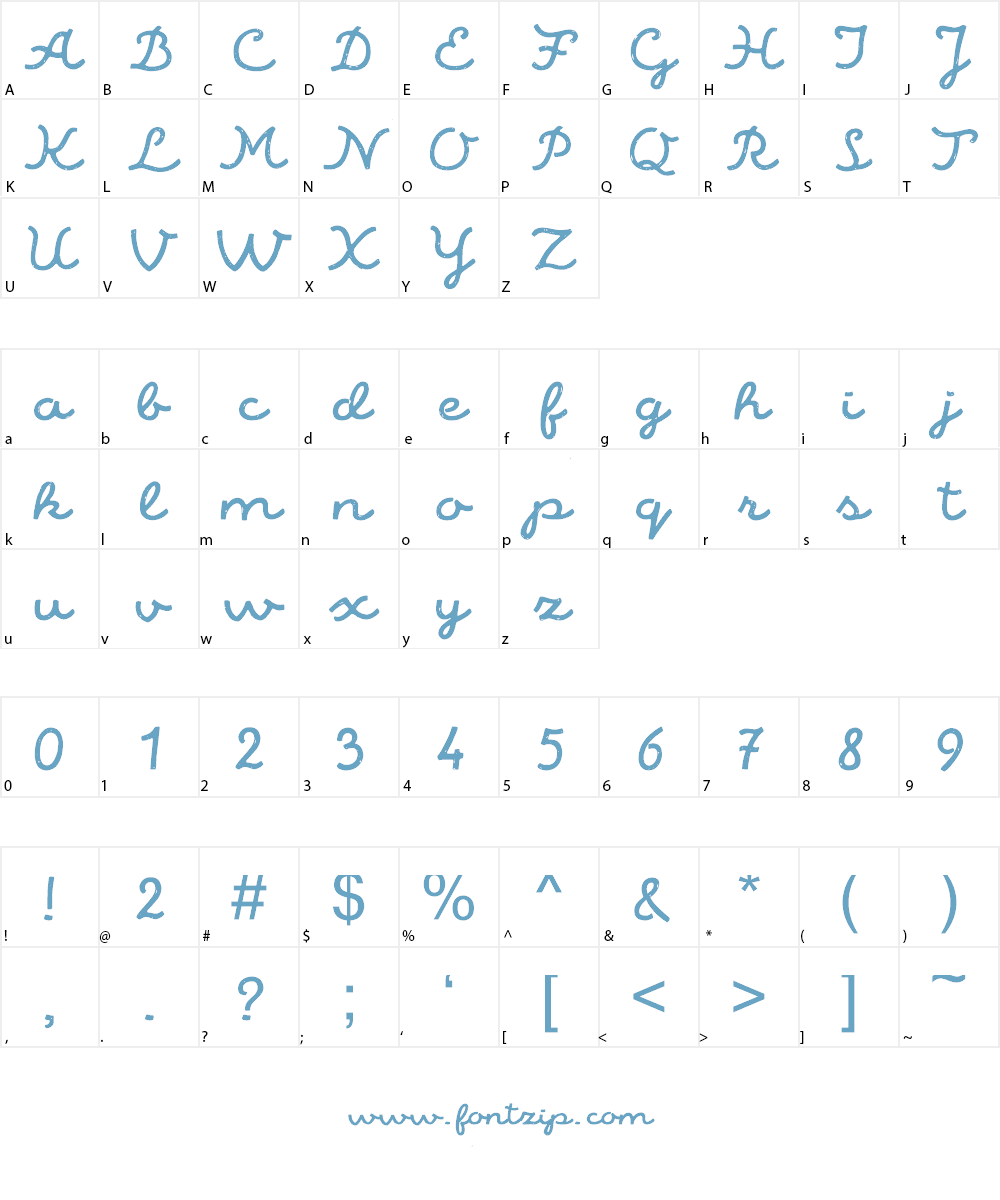
ALASKA SCRIPT DEMO is the demo version of this fully cursive retro style, hand drawn script.
It has contextual alternates for smooth connection of o-r, b-s etc.
- Contextual alternates and
- Standard ligatures.